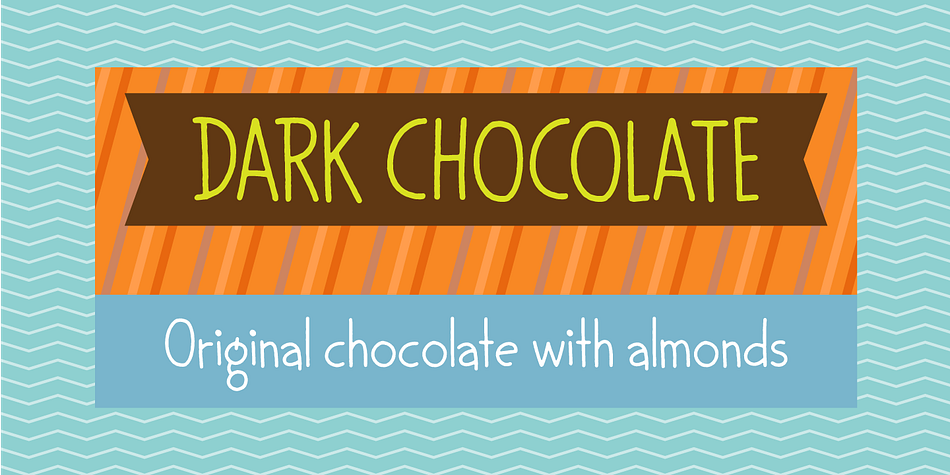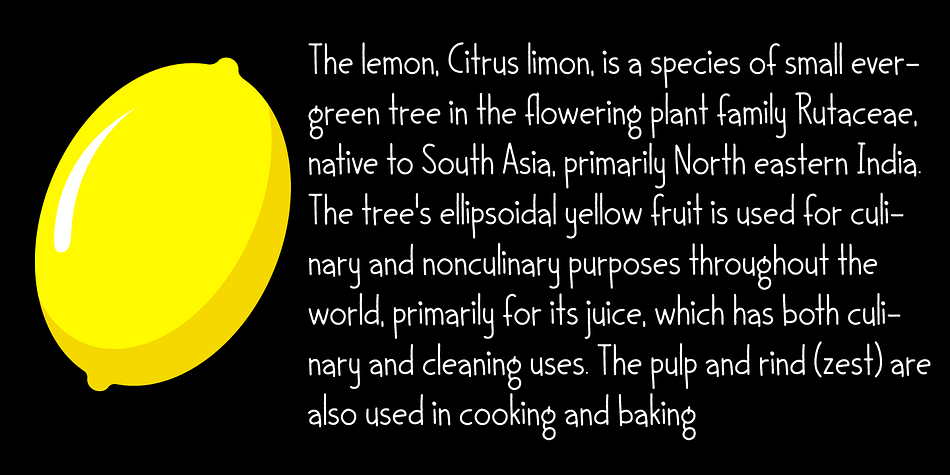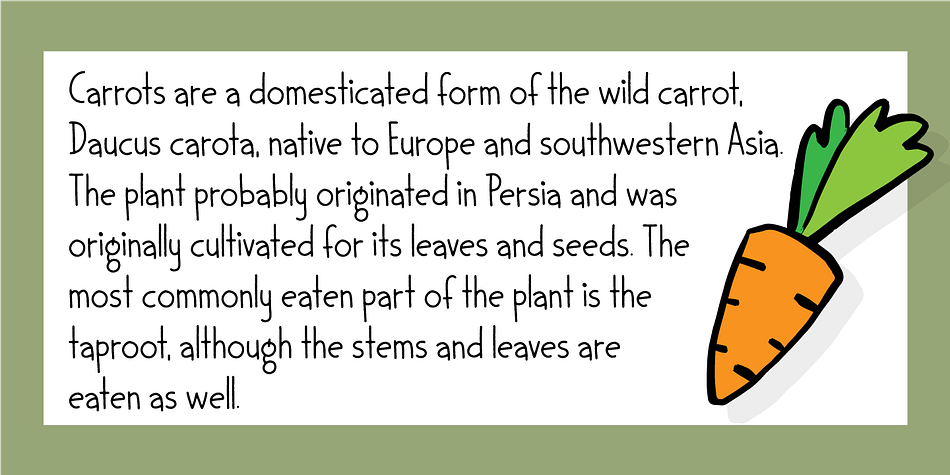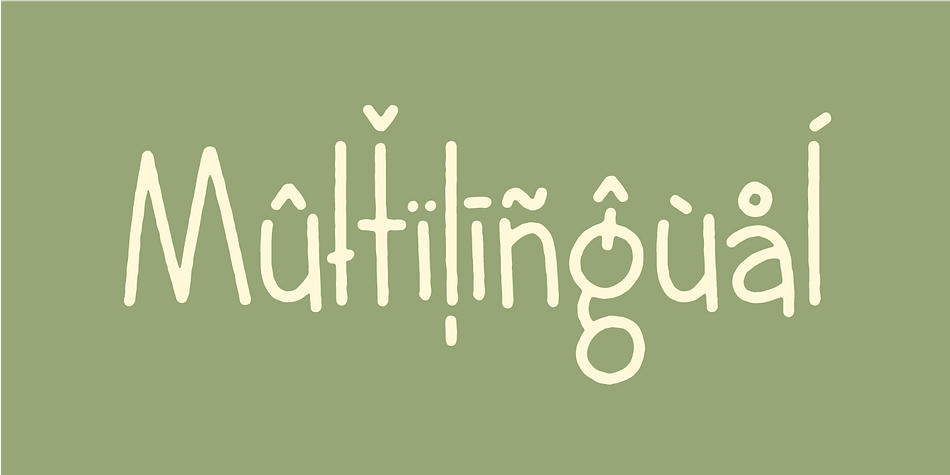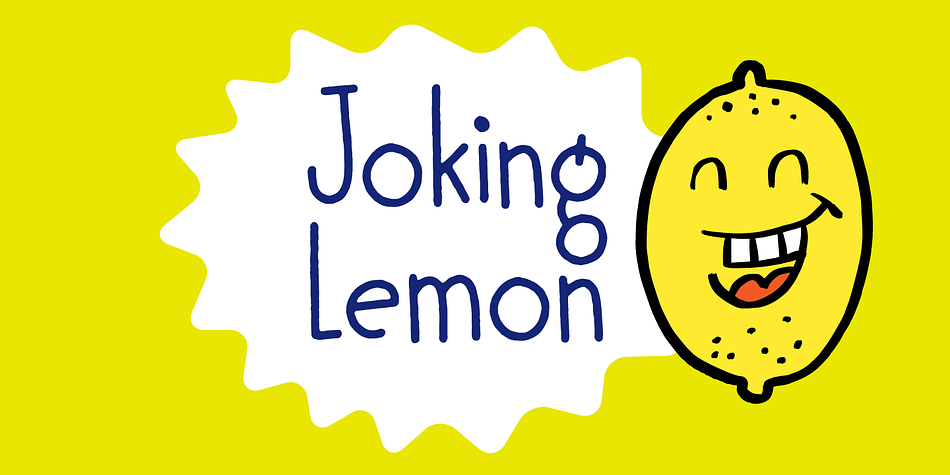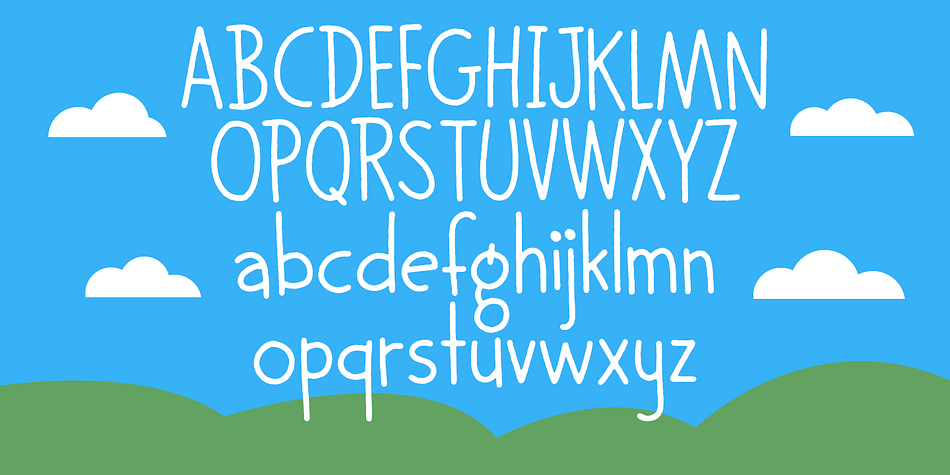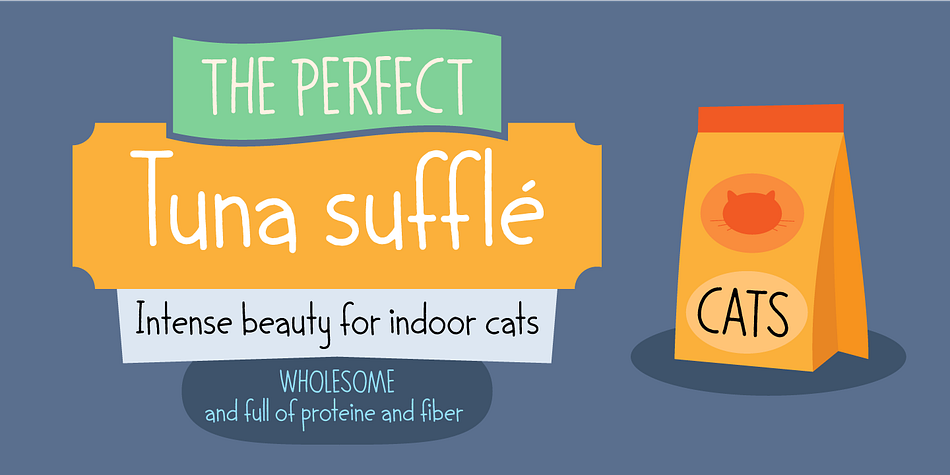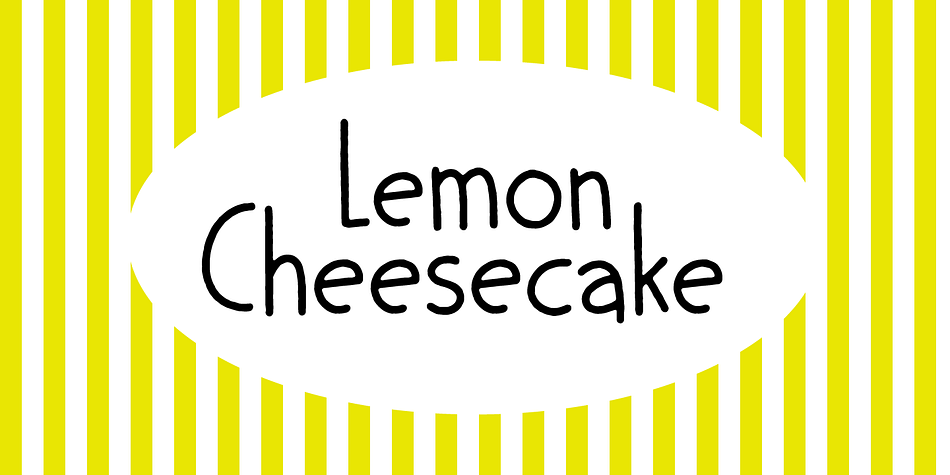
Designed by Jakob Fischer, Joking Lemon is a hand drawn and kids font published by Bogstav.
Joking Lemon is a playful sans serif font, which does really well with catch words or headlines that needs a casual and fun look. Both ascenders and descenders are pretty long, giving the text a kind of stretched look - but still very legible! Use Joking Lemon for toys, recipes, packaging, candy, birthday cards ... actually anything, even cat food commercials!